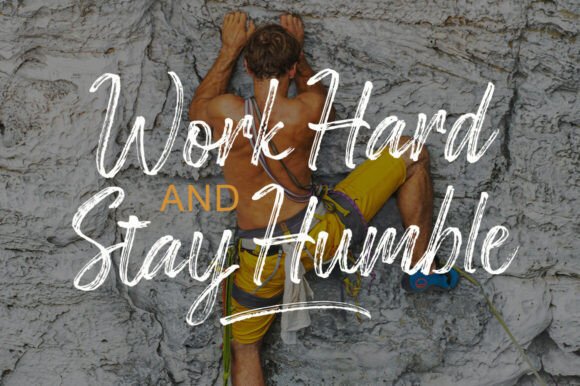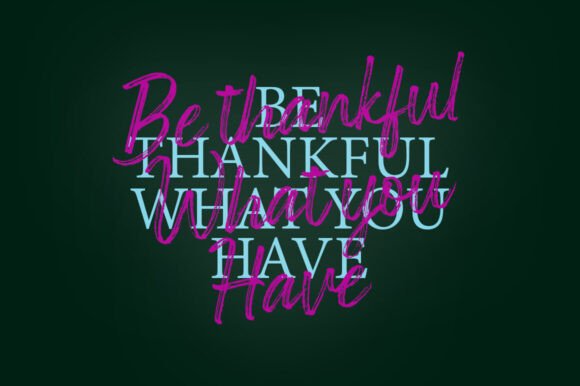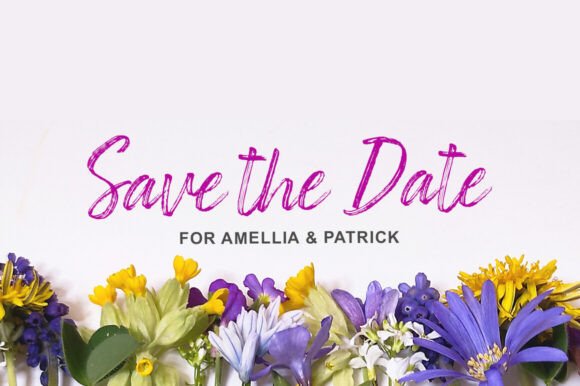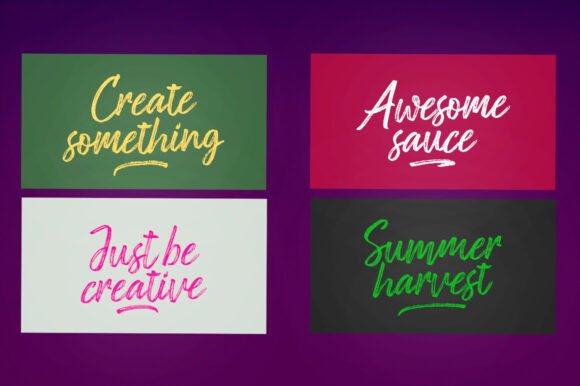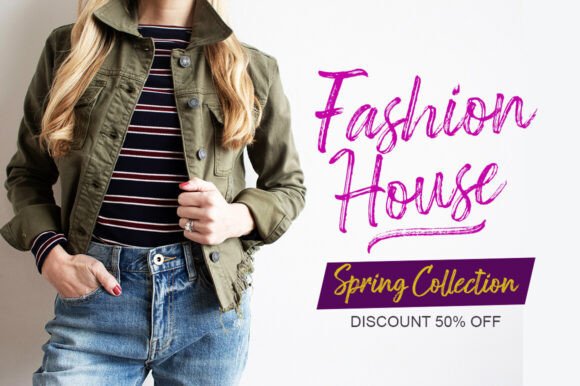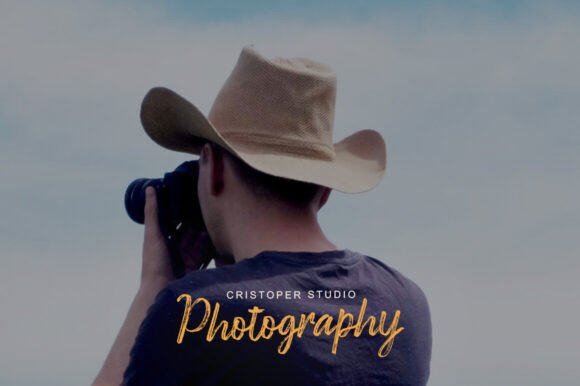
Amslow Font: The Ultimate Brush Script for Creative Projects
Are you a designer or crafter looking for a unique and versatile font to elevate your creative projects? Look no further than Amslow Font, a super casual hand-brushed script that exudes a quirky charm. With its detailed brush stroke texture, Amslow Font is perfect for adding a personal touch to various designs, from titles and signatures to logos and wedding invitations.
What is Amslow Font?
Amslow Font is a hand-brushed script font that boasts a distinctive, casual feel. Its detailed brush stroke texture gives it a organic, hand-crafted look that’s perfect for designers and crafters seeking to add a touch of personality to their work. The font’s quirky nature makes it ideal for creative projects that require a bit of whimsy and flair.
Uses of Amslow Font
Amslow Font is incredibly versatile and can be used for a wide range of purposes, including:
- Title design: Add a touch of elegance and sophistication to your titles with Amslow Font’s flowing script.
- Signature design: Create a unique and personalized signature that reflects your style.
- Letterhead and stationery: Elevate your correspondence with a custom letterhead that features Amslow Font.
- Signage: Make your signs stand out with Amslow Font’s bold, eye-catching script.
- Labels and packaging: Add a personal touch to your product labels and packaging with Amslow Font.
- Newsletters and magazines: Use Amslow Font to add a touch of personality to your publications.
- Posters and flyers: Create eye-catching posters and flyers with Amslow Font’s bold, attention-grabbing script.
- Logos and branding: Use Amslow Font to create a unique and memorable logo for your brand.
- Correspondence: Add a touch of elegance to your letters and emails with Amslow Font.
- Wedding invitations: Make your wedding invitations truly special with Amslow Font’s beautiful, flowing script.
- Badges and awards: Create custom badges and awards with Amslow Font’s bold, eye-catching script.
Why Choose Amslow Font?
So, why should you choose Amslow Font for your creative projects? Here are just a few reasons:
- Unique and versatile: Amslow Font’s quirky, hand-brushed script makes it perfect for a wide range of creative projects.
- Easily readable: Despite its casual nature, Amslow Font is incredibly easy to read, making it perfect for body text and titles.
- High-quality texture: Amslow Font’s detailed brush stroke texture gives it a high-quality, organic look that’s perfect for designers and crafters.
- Customizable: Amslow Font can be easily customized to fit your project’s specific needs, from adjusting the font size to adding your own textures and effects.
Tips for Using Amslow Font
Here are a few tips for getting the most out of Amslow Font:
- Experiment with font sizes: Amslow Font looks great in a variety of font sizes, from large titles to smaller body text.
- Pair with other fonts: Amslow Font pairs well with a variety of other fonts, from clean sans-serifs to elegant scripts.
- Add texture and effects: Consider adding texture and effects to Amslow Font to give it an extra boost of personality.
- Use it sparingly: Amslow Font is a bold, attention-grabbing font, so use it sparingly to avoid overwhelming your design.
Amslow Font is a unique and versatile hand-brushed script that’s perfect for designers and crafters seeking to add a touch of personality to their creative projects. With its detailed brush stroke texture and quirky charm, Amslow Font is ideal for a wide range of applications, from titles and signatures to logos and wedding invitations. Whether you’re a seasoned designer or a crafty DIY enthusiast, Amslow Font is sure to become a go-to font in your creative arsenal.